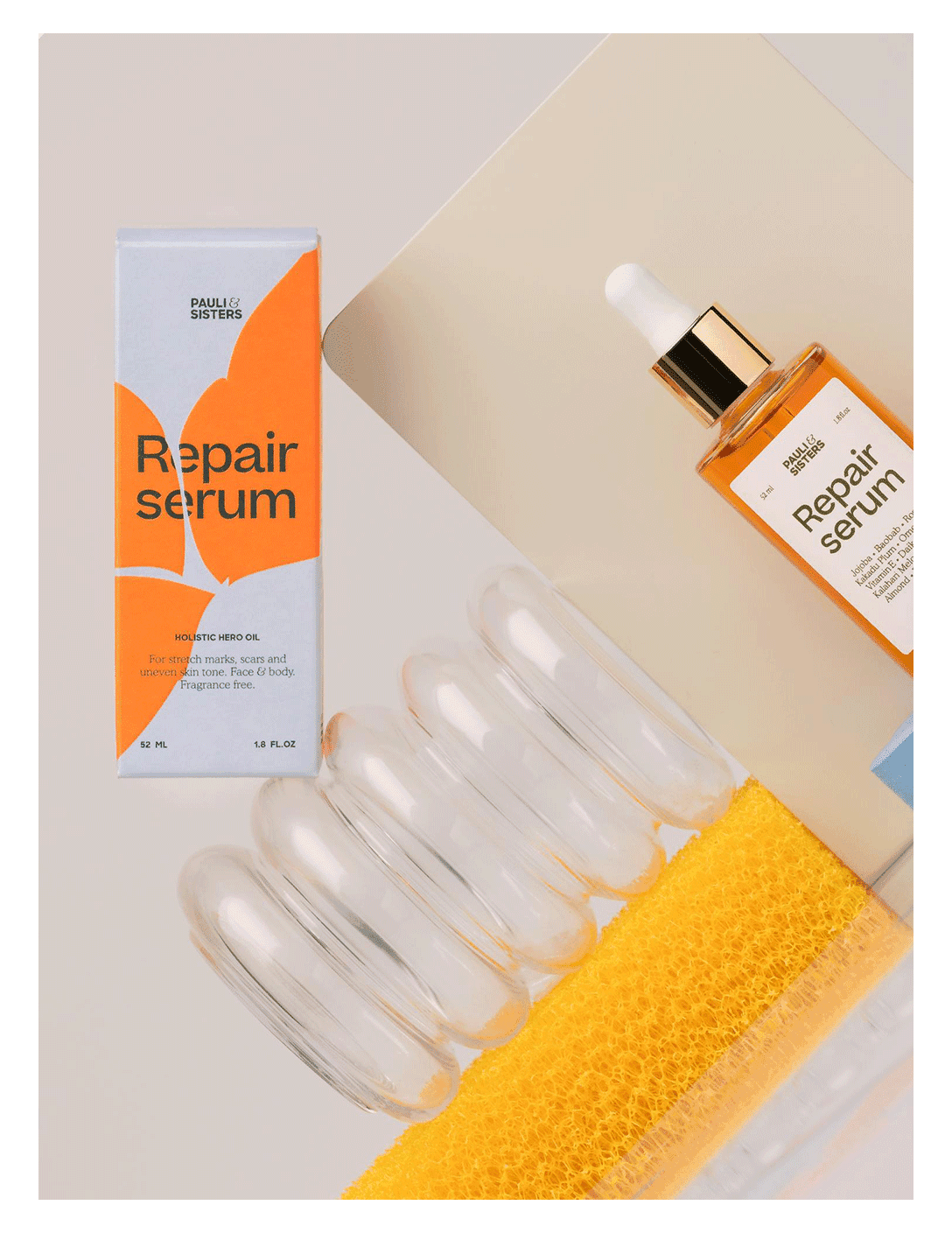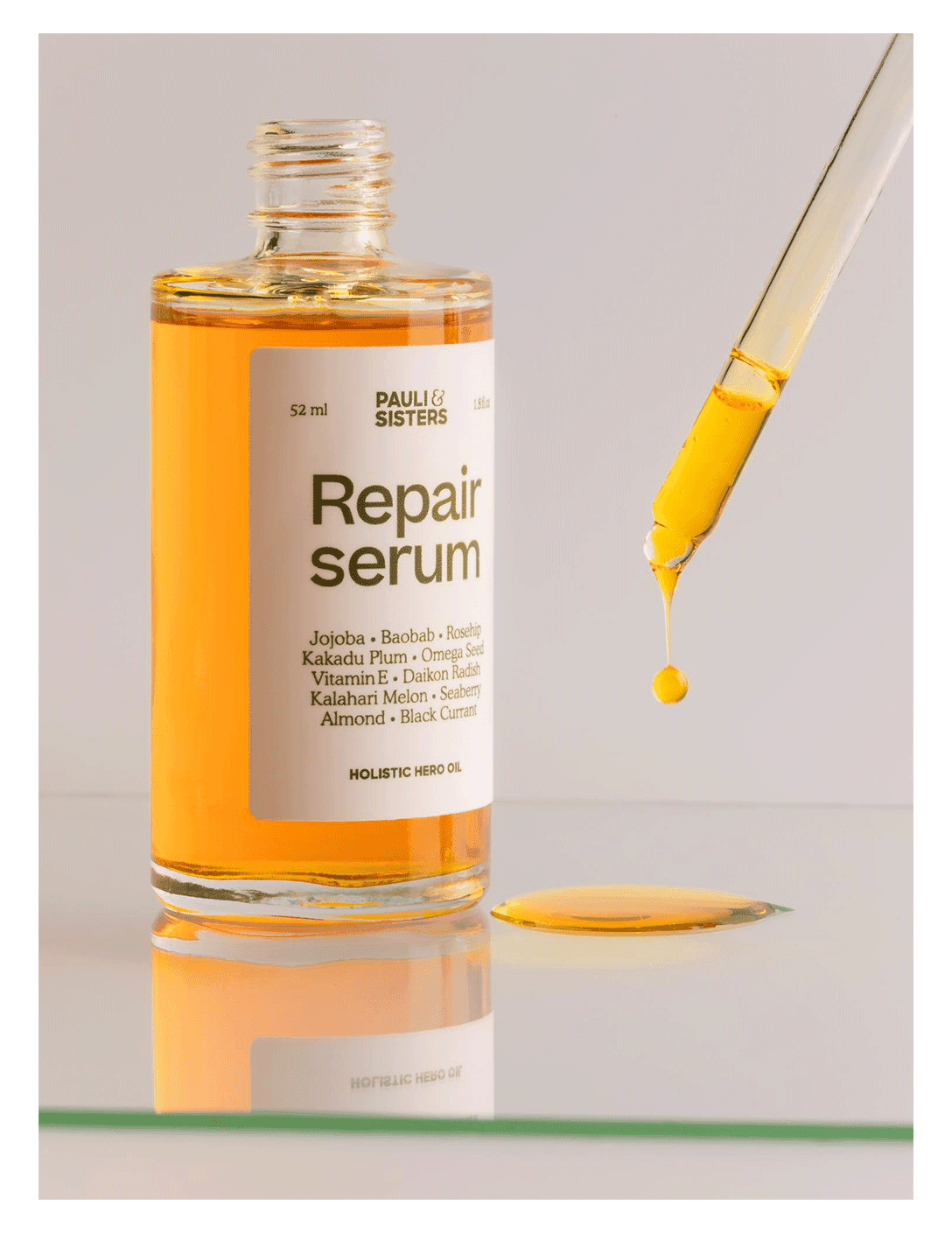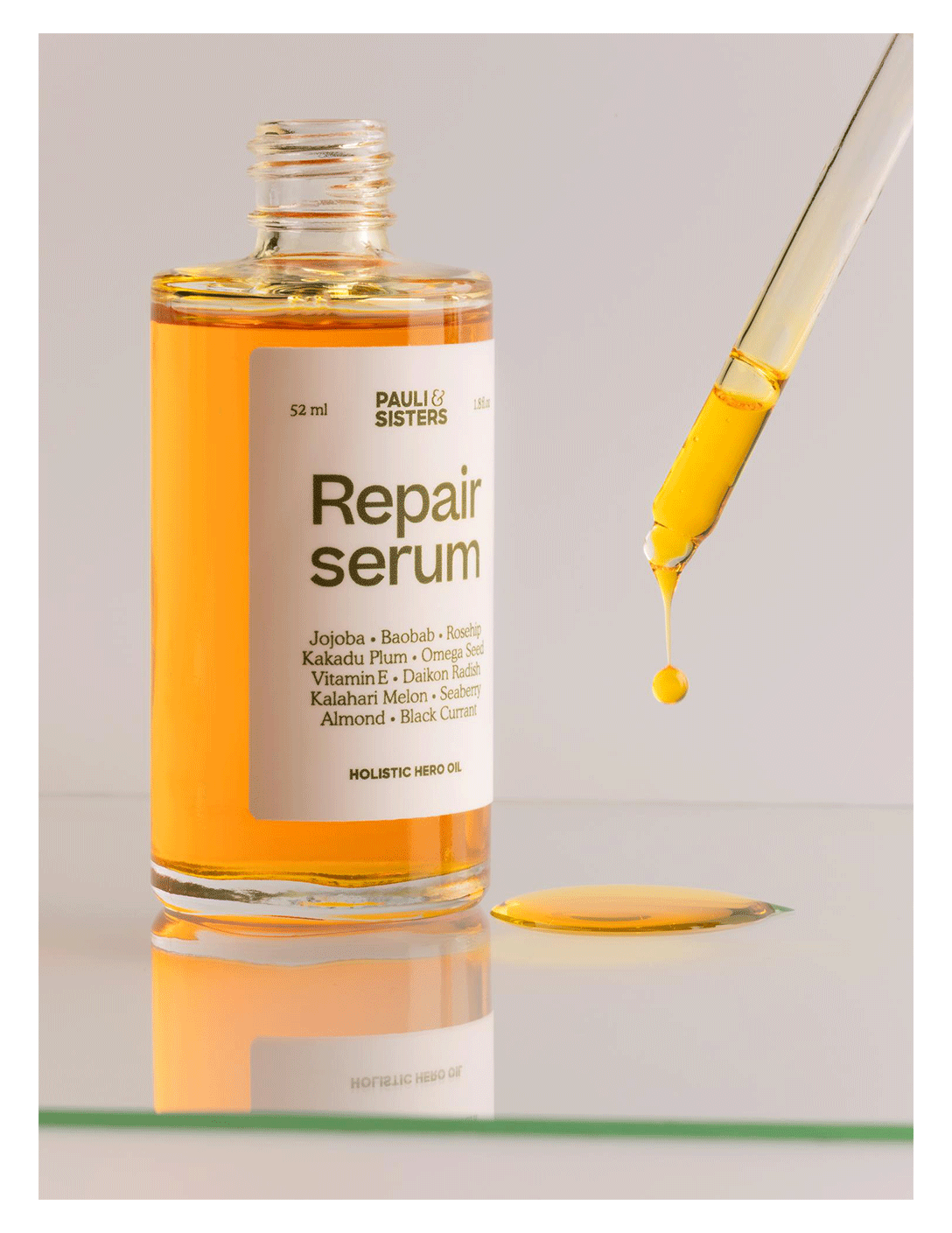
Pauli & Sisters is a family-owned skincare brand based in California whose main product is a plant-based Repair Serum that boosts cell and collagen production, eases inflammation, heals scarring, and evens the hyper-pigmentation and circulation to the skin. The logotype uses the extra bold weight of Sharp Sans. The colorful, floral packaging additionally uses Beatrice to highlight and emphasize the serum’s organic ingredients.
Typefaces:Beatrice, Sharp Sans